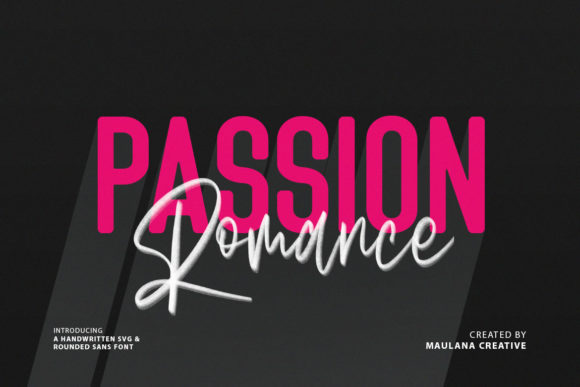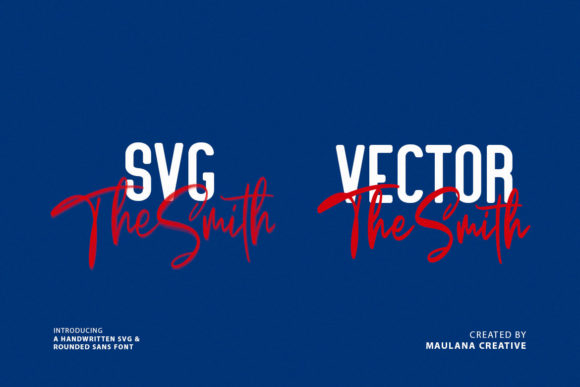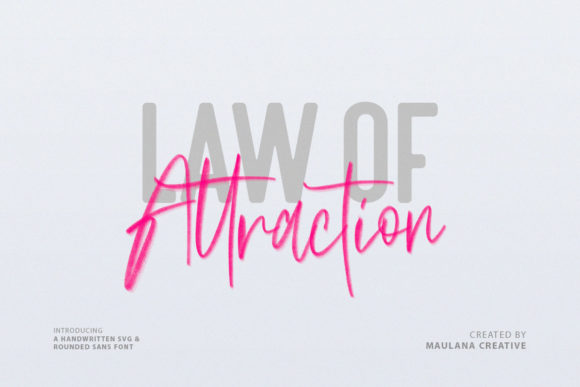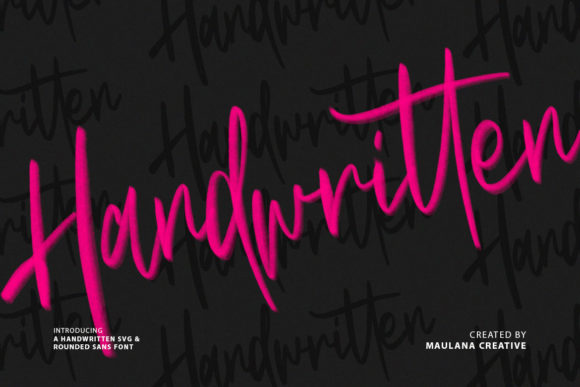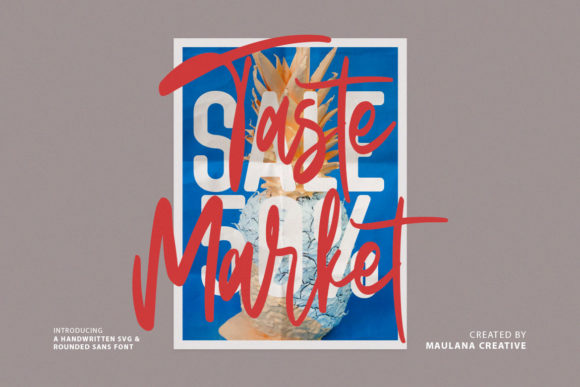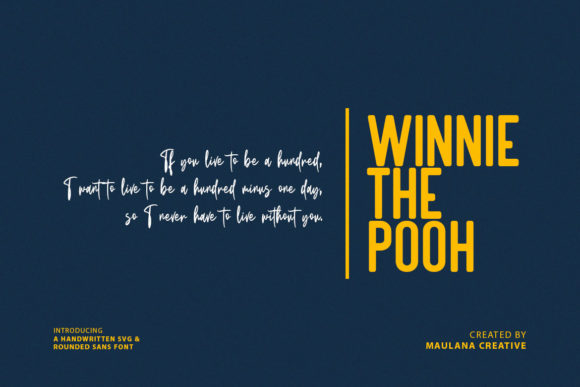
Introduction to Bellarush Font
Bellarush is a carefully crafted font duo consisting of a gorgeous script and a bold sans serif font.
Combine them to achieve outstanding design results .
Key Features of Bellarush Font